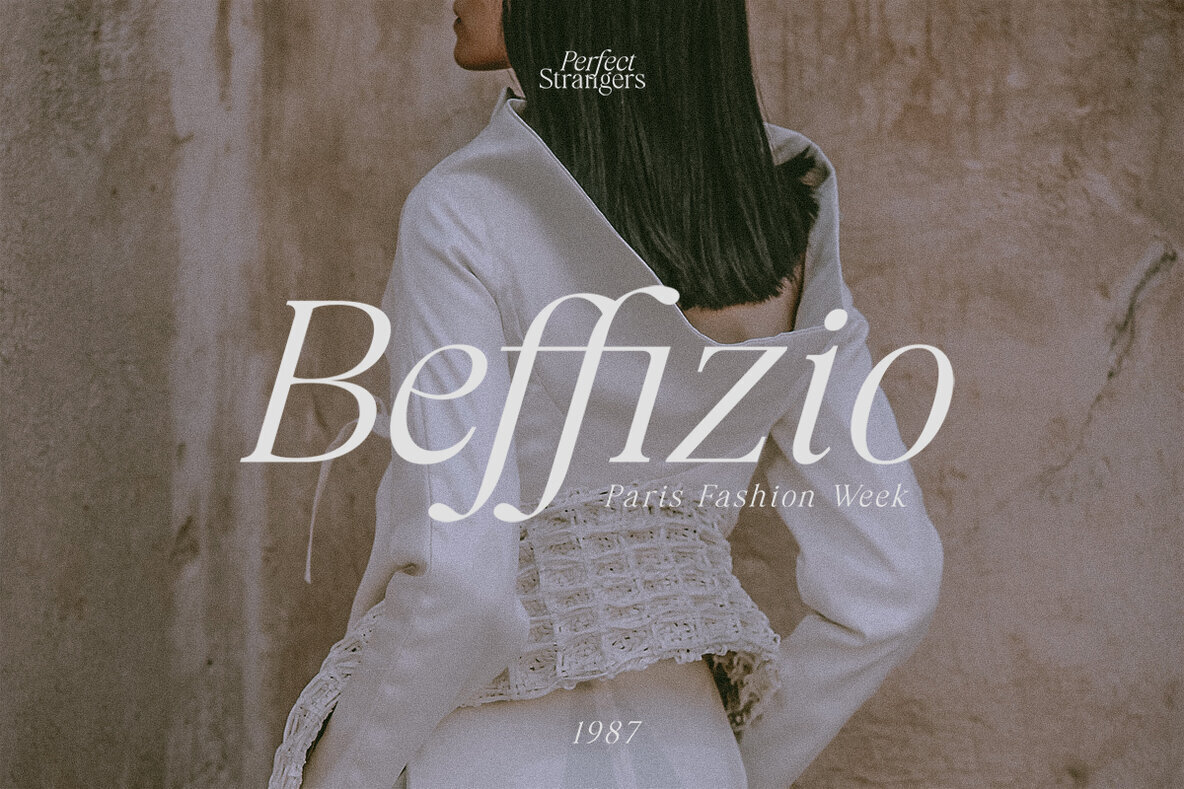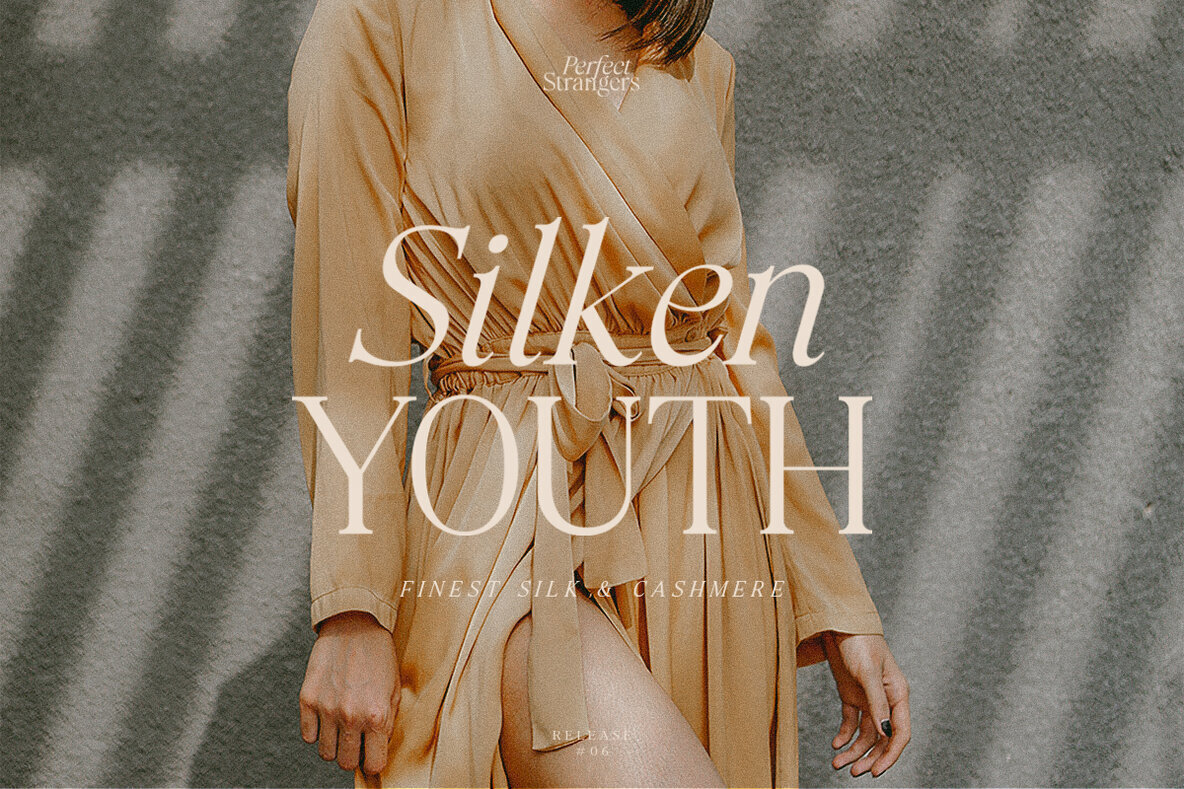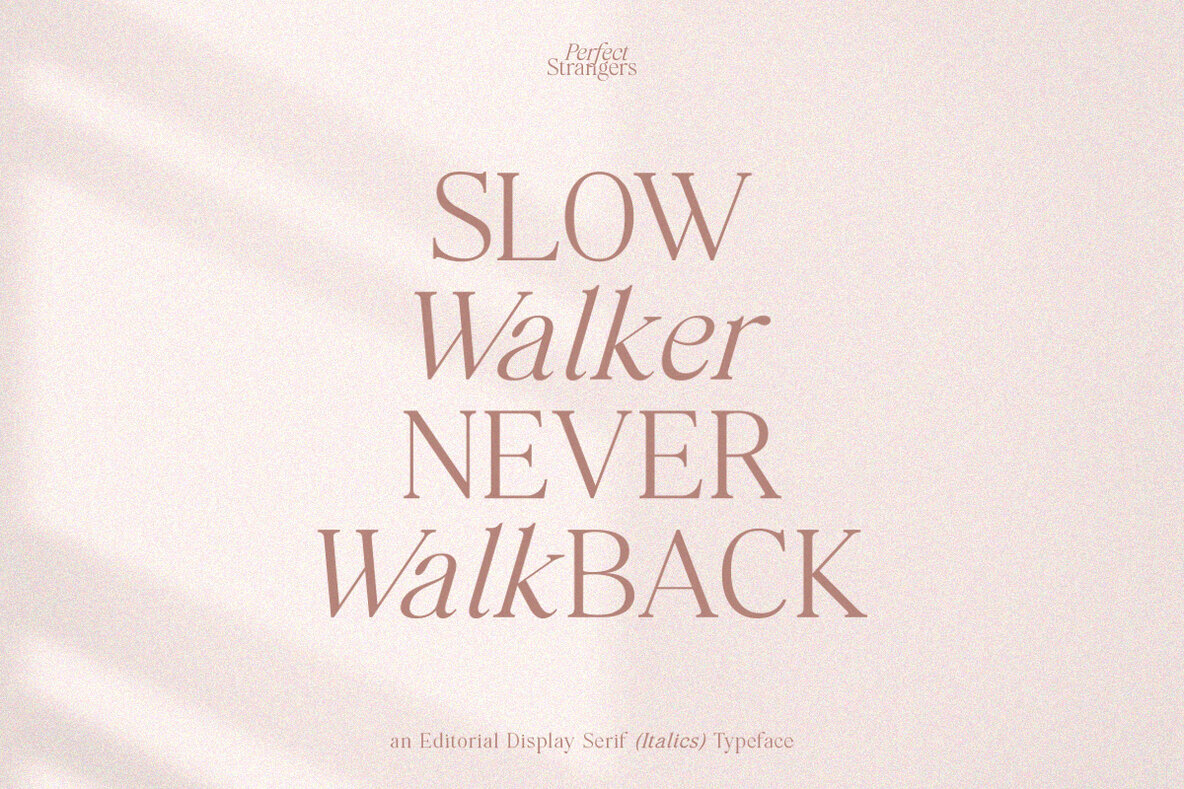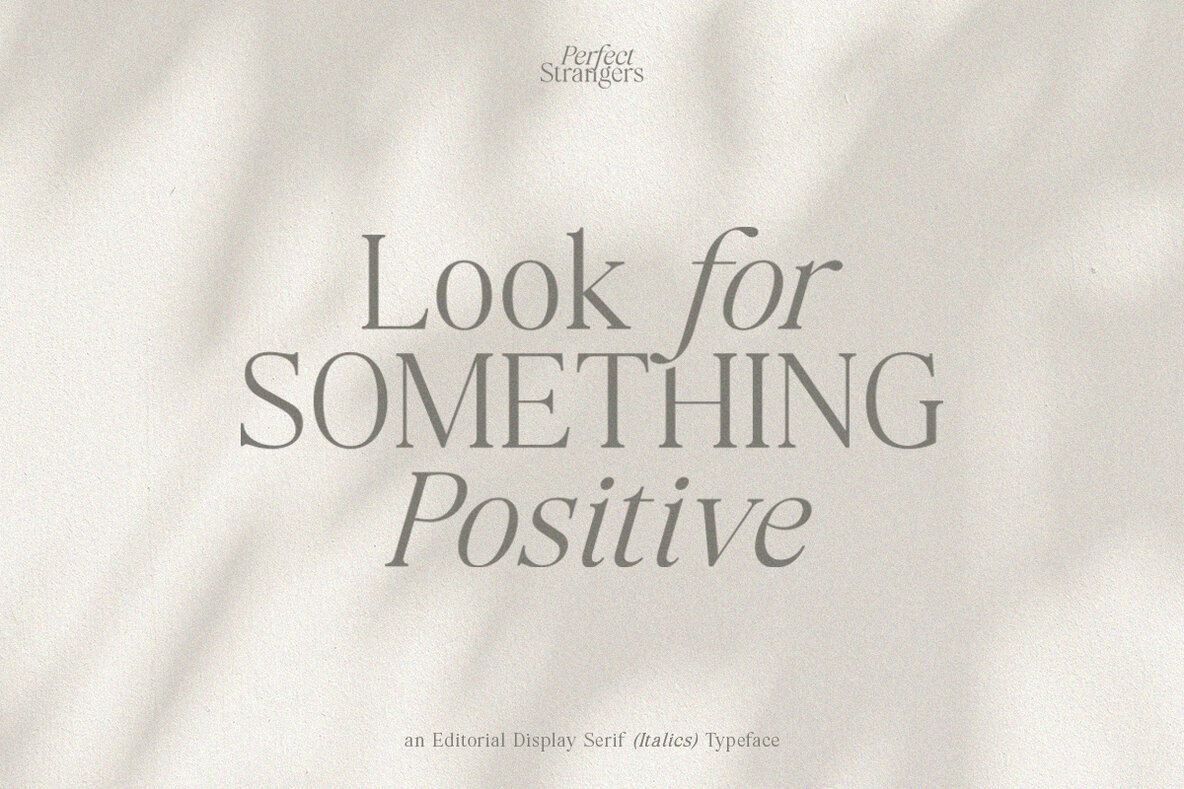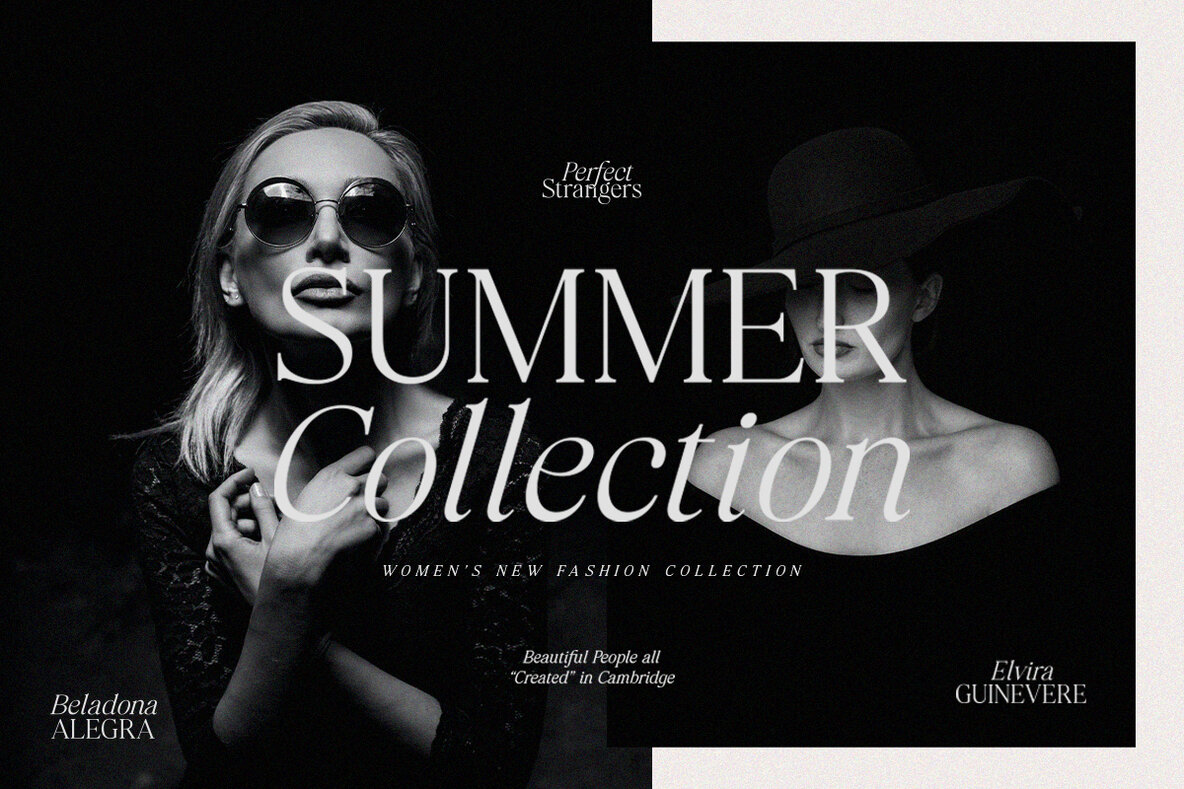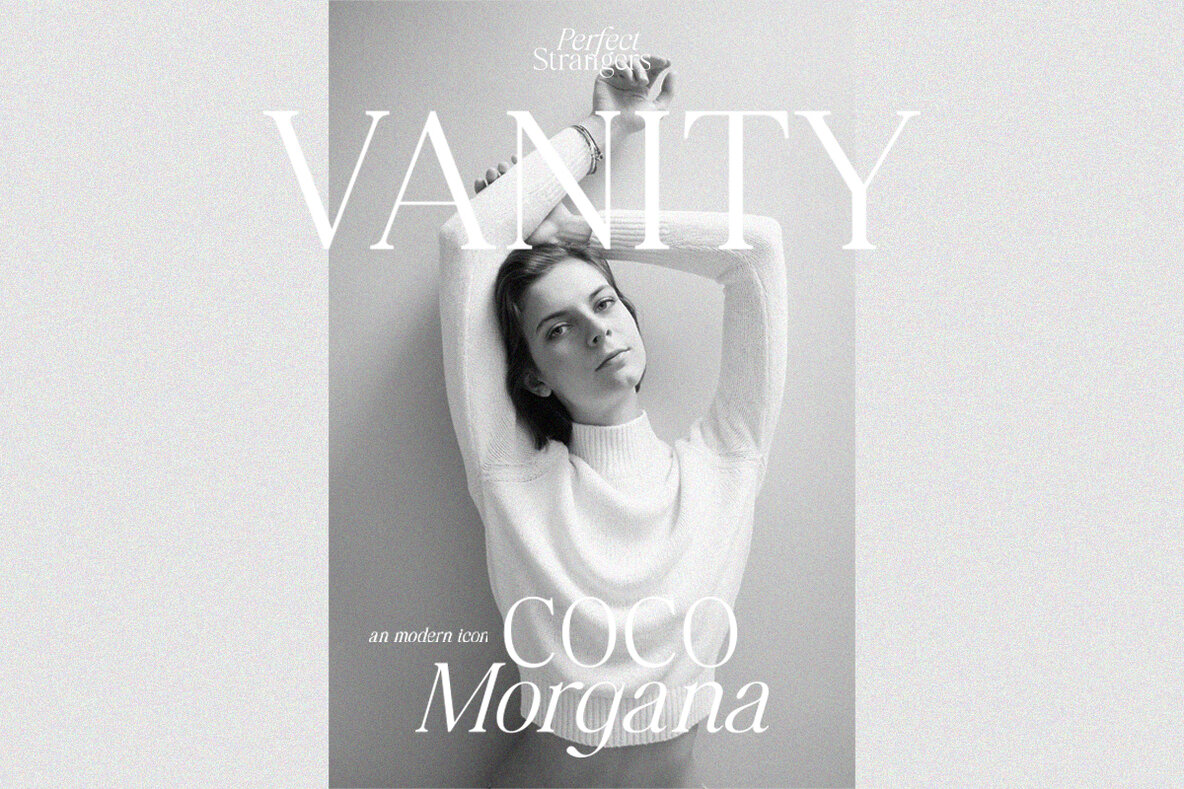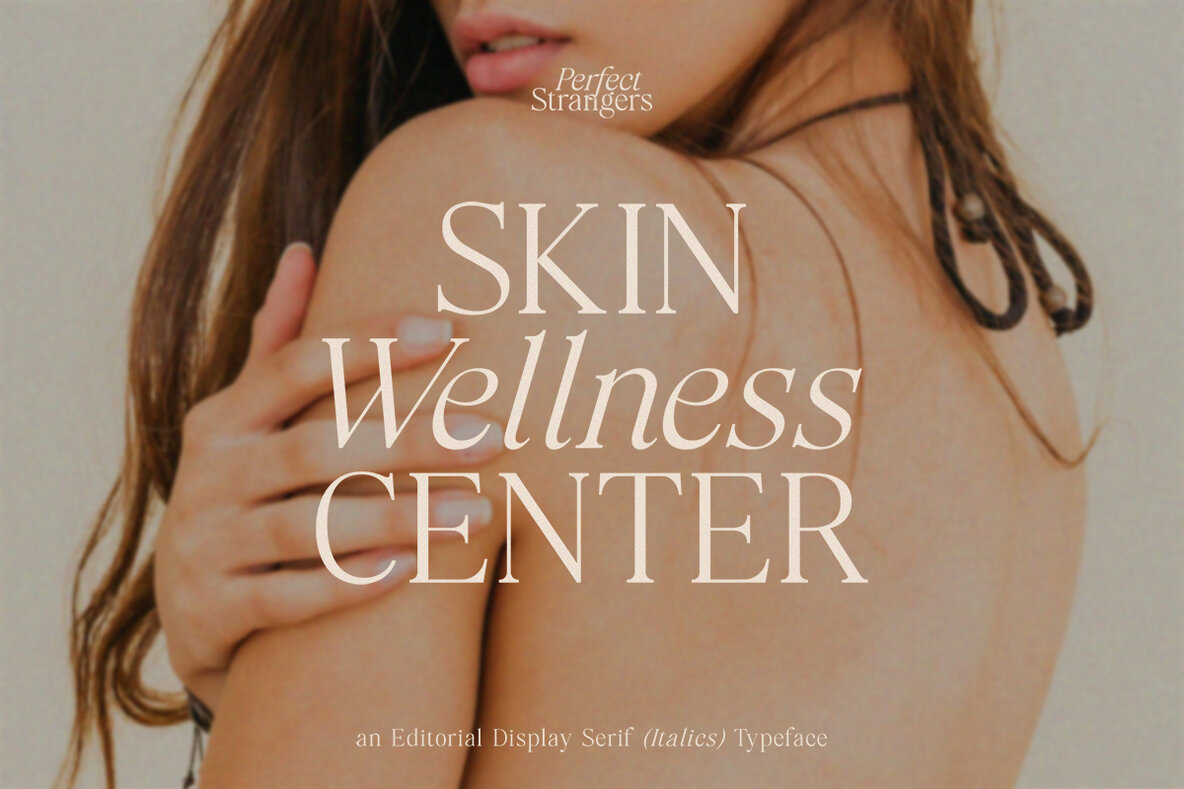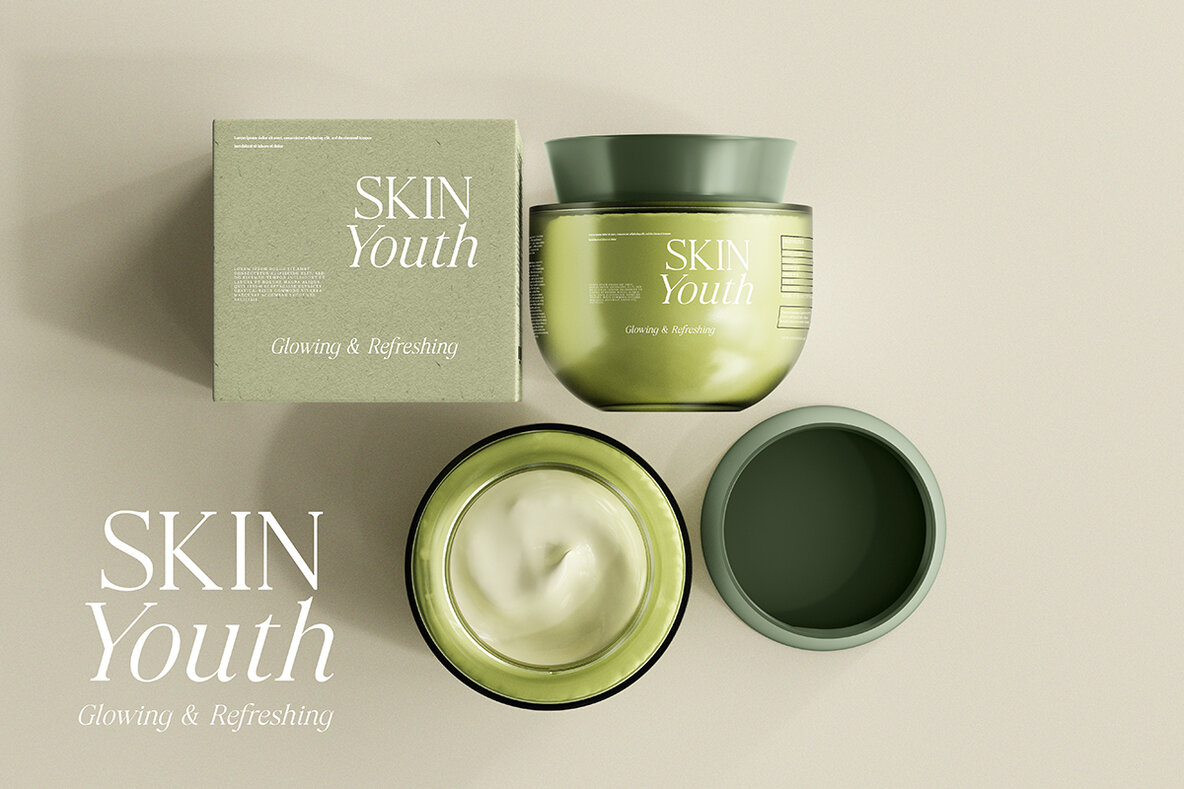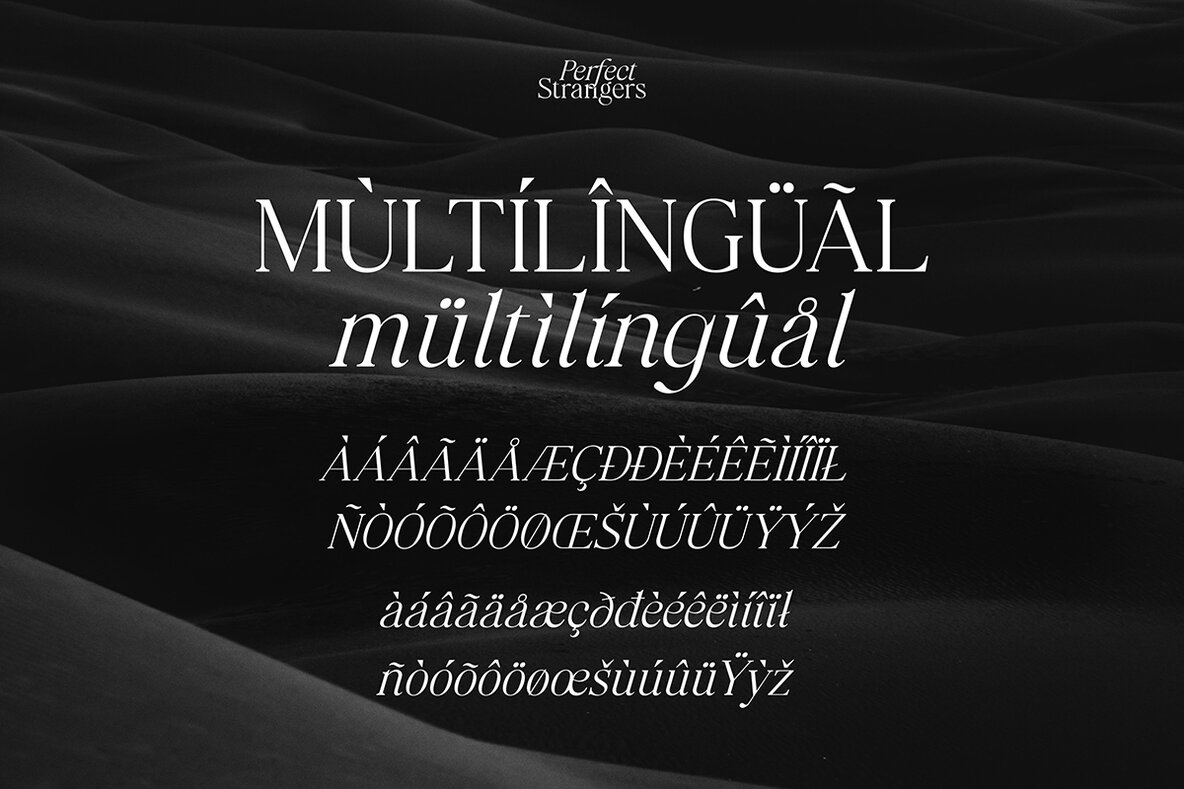
Perfect Strangers: An Elegant Display Serif
Perfect Strangers is a display serif that encapsulates a sense of luxury and elegance. Designed to enhance high-end projects, this typeface evokes sophistication and charm in every letter. Whether you're crafting editorial layouts or creating distinctive branding, its intricate details and refined style make it a perfect choice.
• Luxe Inspiration – Inspired by luxury aesthetics, the font exudes elegance.
• Display Use – Ideal for headlines, banners, and editorial designs.
• Versatile Italics – Add flair without overpowering the design.